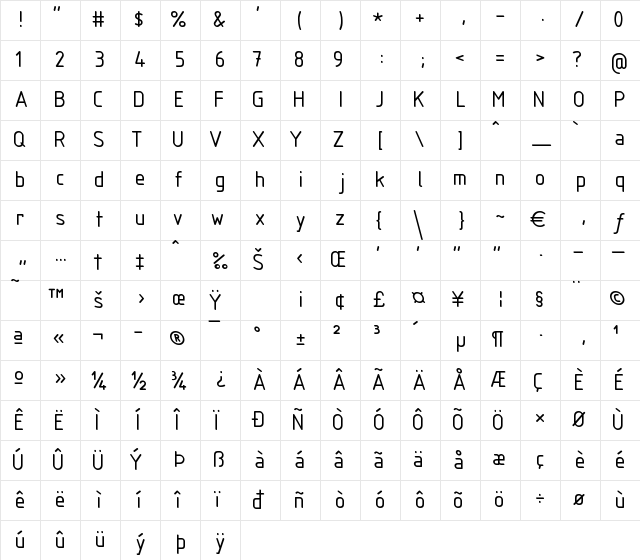
ISOCTEUR Regular
ISOCTEUR Family
Design Context for ISOCTEUR
ISOCTEUR is a composed and adaptable typeface that performs quietly and consistently across a wide range of design contexts.